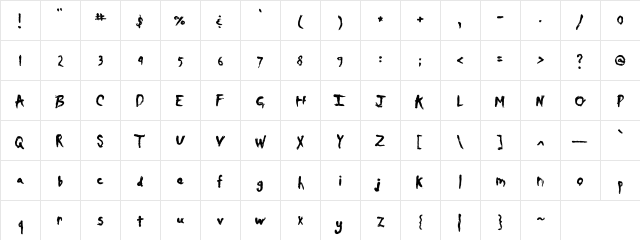
Daubmark Book
Design Context for Daubmark Typeface
Daubmark is a composed and adaptable typeface that performs quietly and consistently across a wide range of design contexts.